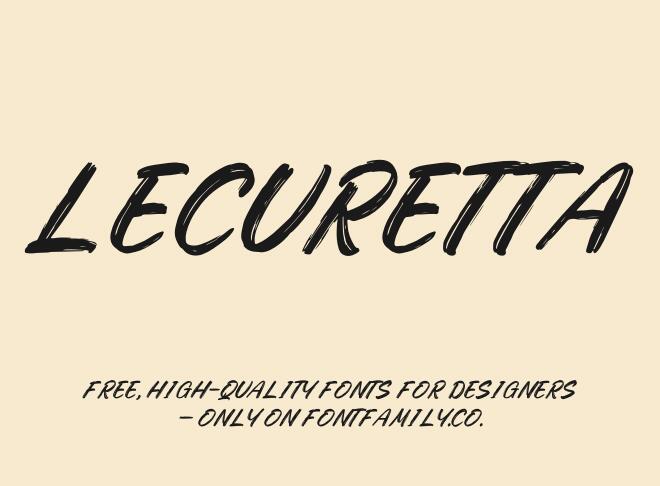
Lecuretta Font
Lecuretta Font is a striking, playful script typeface designed by Design Foundry. Its unique handwritten style is perfect for adding a touch of elegance and charm to your designs. Featuring a lively, flowing script, Lecuretta Font is excellent for logos, invitations, greeting cards, and more. It captures the essence of classic calligraphy while maintaining a modern twist. With its unique features and stylistic alternatives, it stands out among other script fonts. It's easy to read, making it a great choice for large chunks of text. Lecuretta Font is a versatile typeface that can enhance any project, lending itself to a broad range of design contexts. Download Lecuretta Font today to add a touch of elegance and playfulness to your next design project.